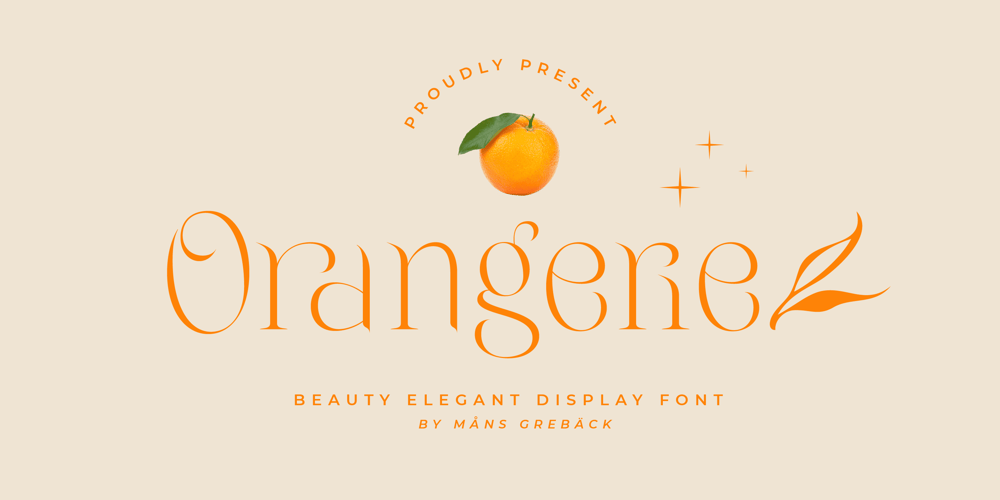
Orangerie Font Family was designed by Måns Grebäck and published by Mans Greback. Orangerie contains 4 styles and family package options. Orangerie is a soft, delicate, and beautiful typeface that captures the essence of fashion, sweetness, and nature. Its flowing, thin lines evoke a sense of calm and loveliness, making it the perfect choice for romantic, professional, and light-hearted projects alike.Inspired by the serene beauty of blooming flowers in a sunlit orangerie, the typeface was meticulously crafted to convey a sense of warmth, tranquility, and sophistication. The result is a font that feels both contemporary and timeless, perfect for a wide range of applications, from branding and packaging to wedding invitations and personalized stationery.Use character ¤ to make decorative nature element such as leaves. Use multiple for different versions. Example: Sweet¤¤¤¤Morning(Download required.)This elegant font comes in four versatile styles: Regular, Bold, and their italic versions, allowing you to craft the perfect tone and atmosphere for your designs.The font is built with advanced OpenType functionality and has a guaranteed top-notch quality, containing stylistic and contextual alternates, ligatures, and more features; all to give you full control and customizability. It has extensive lingual support, covering all Latin-based languages, from Northern Europe to South Africa, from America to South-East Asia. It contains all characters and symbols you’ll ever need, including all punctuation and numbers.